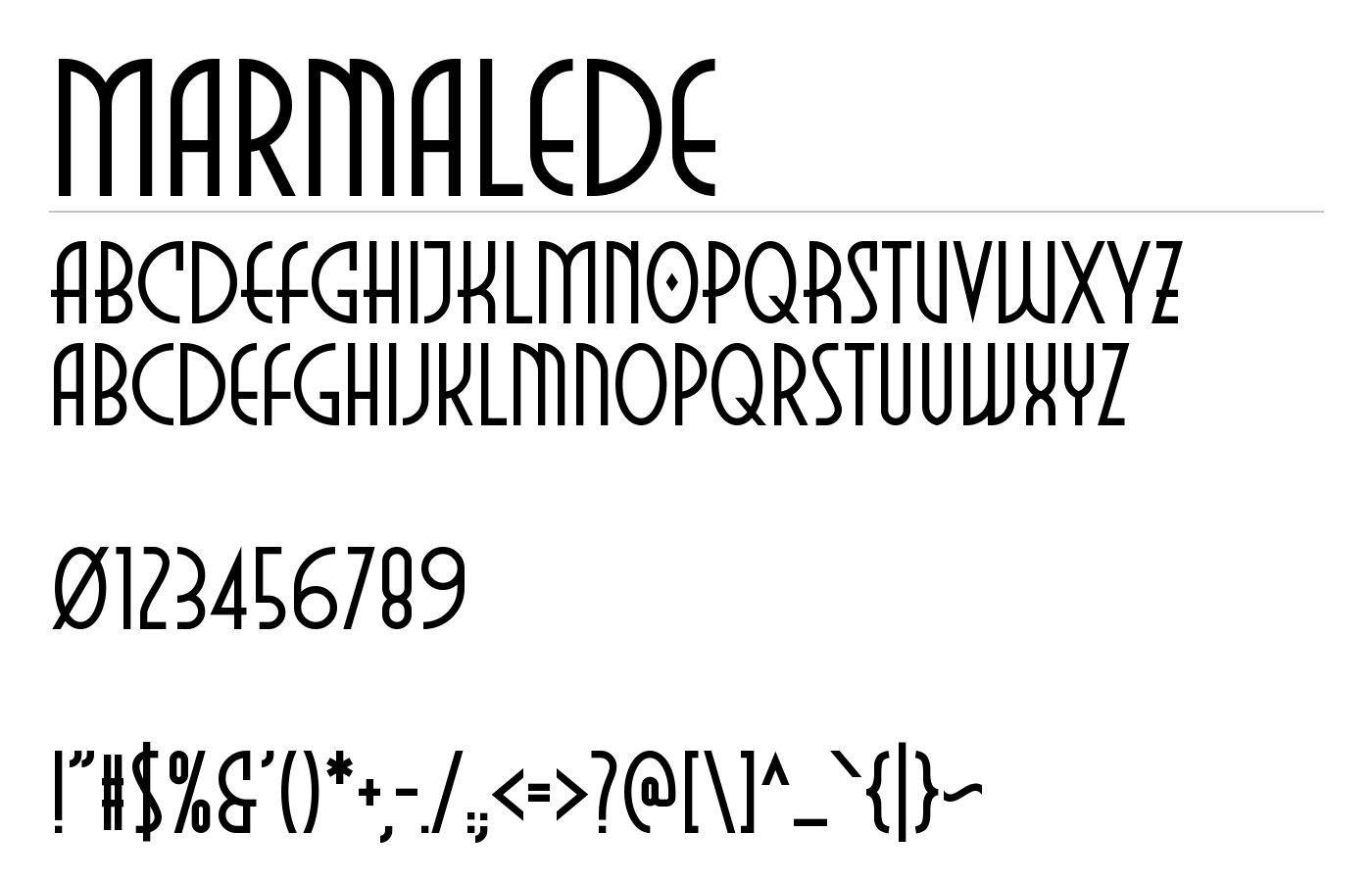
Marmalede is a sleek, modern sans serif font with a narrow, condensed appearance and clean geometric lines. Its tall, elegant letterforms and subtle Art Deco influences create a sophisticated, stylish vibe perfect for fashion branding, headlines, and editorial design where a contemporary yet refined look is desired. This font stands out with unique character details that add personality while maintaining clarity and a professional tone.
Marmalede Font
About Marmalede Font
| Font family | Marmalede Font |
| Designer | Sahirul Puguh |